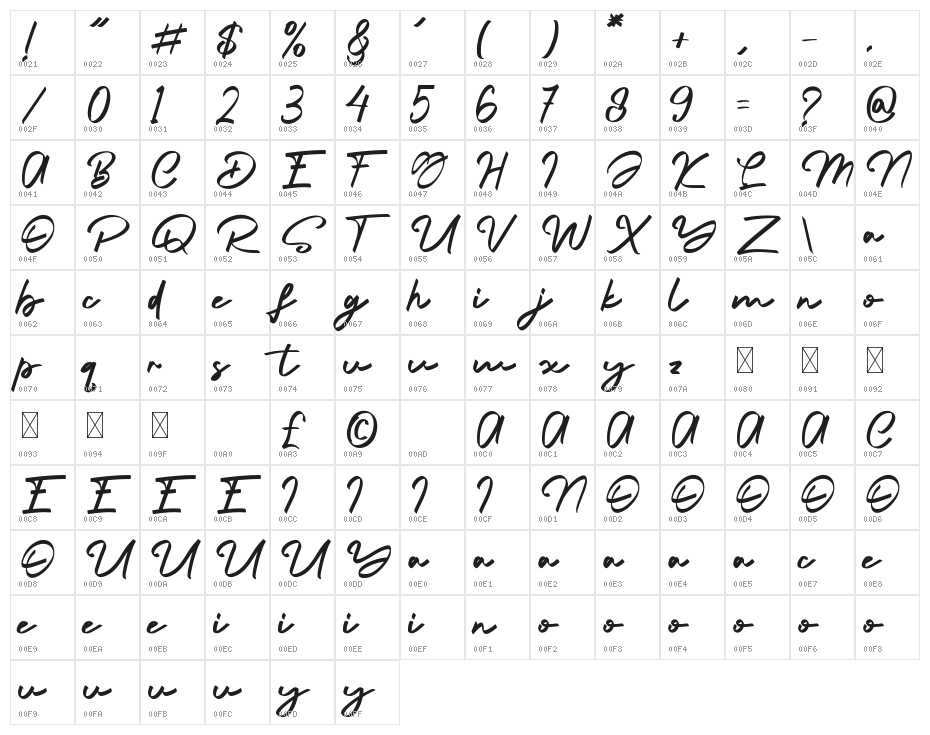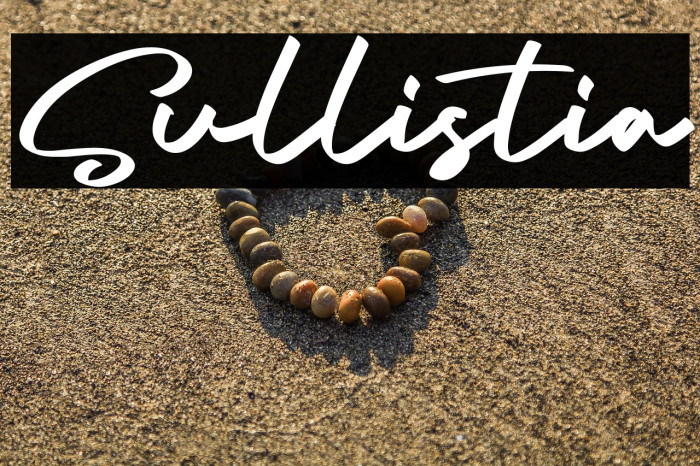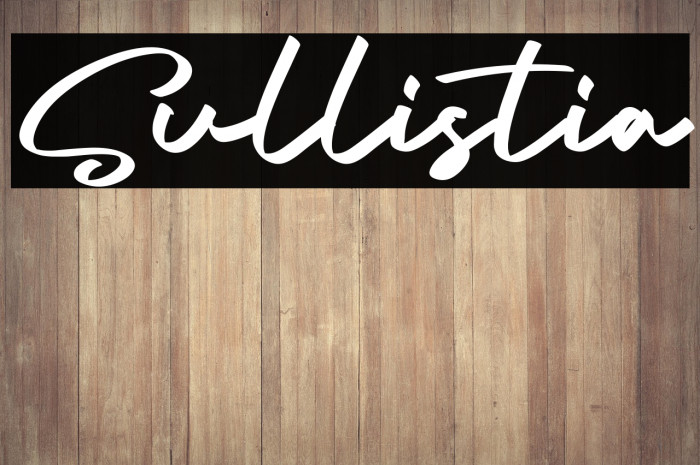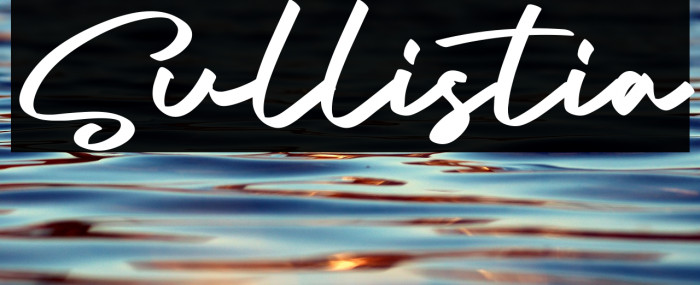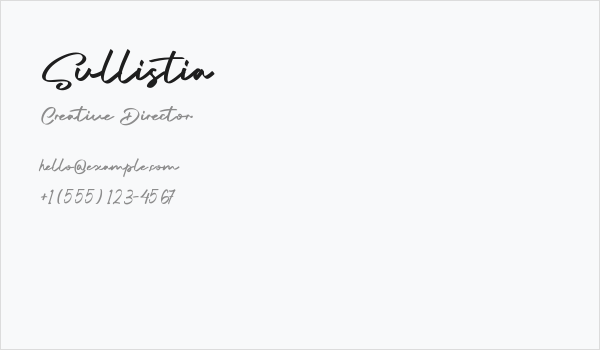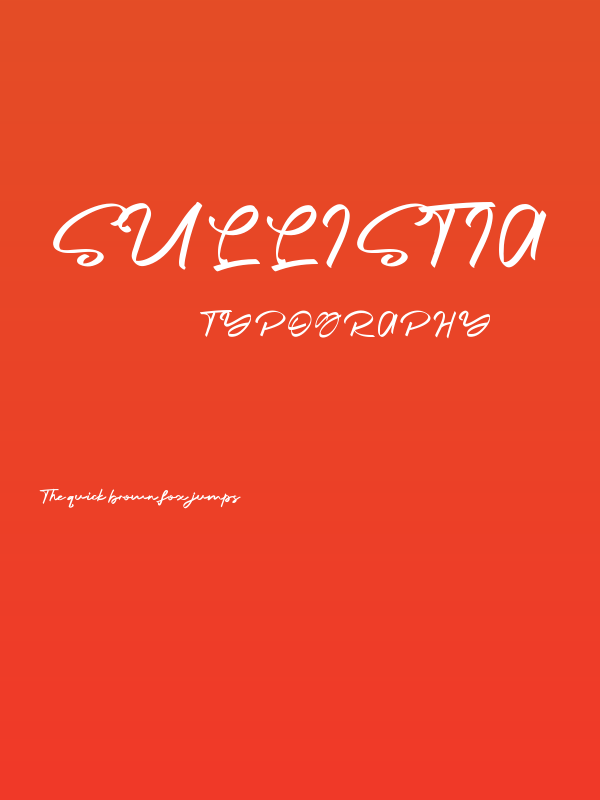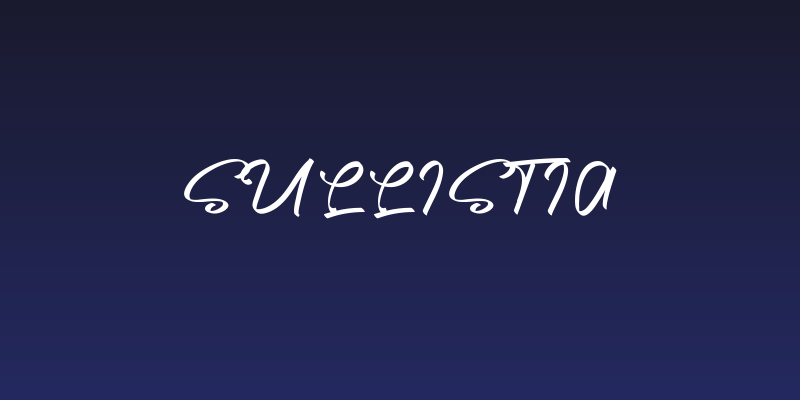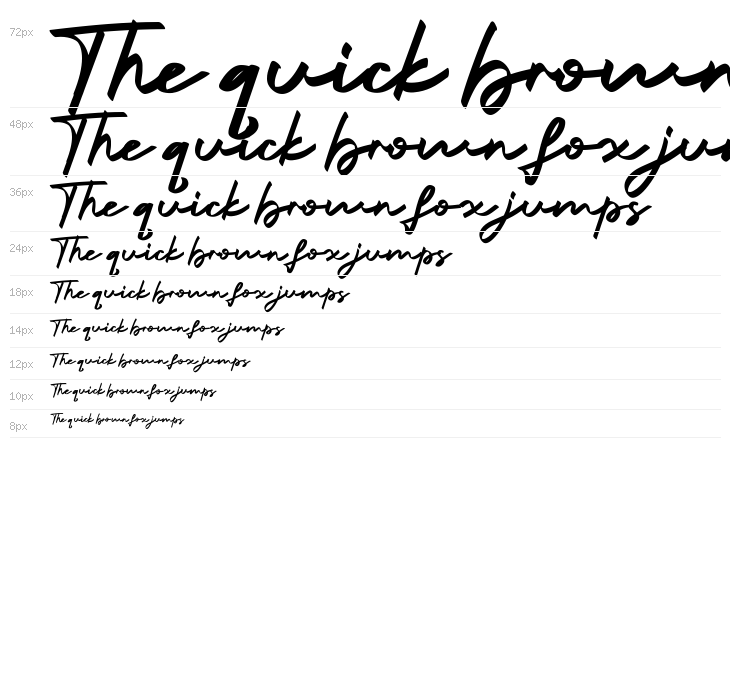
Sullistia Font
Sullistia Description
This font features a flowing, cursive style with a handwritten appearance, characterized by smooth, continuous strokes and elegant loops. The uppercase letters are distinct with a slight slant, while the lowercase letters maintain a consistent flow, enhancing readability. The numerals are bold and clear, matching the overall aesthetic. Special characters are well-integrated, maintaining the fluidity of the script. This font exudes a personal and artistic touch, making it suitable for creative and expressive designs.
| Use Case | Logos, Invitations, Artistic projects |
| Proposed Projects | Ideal for wedding invitations, greeting cards, personal branding, and artistic projects. |